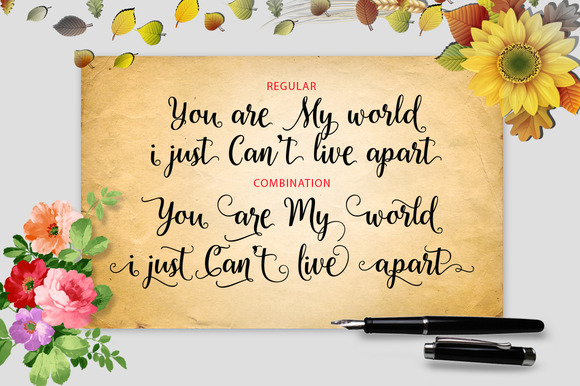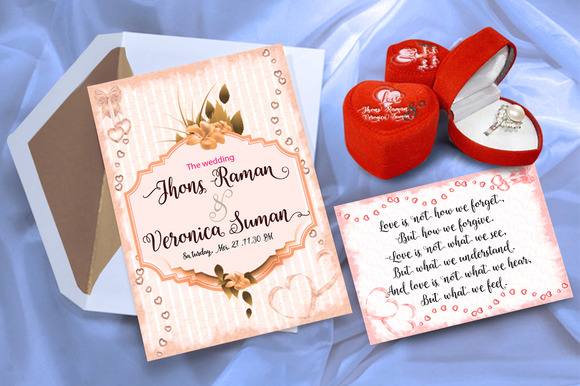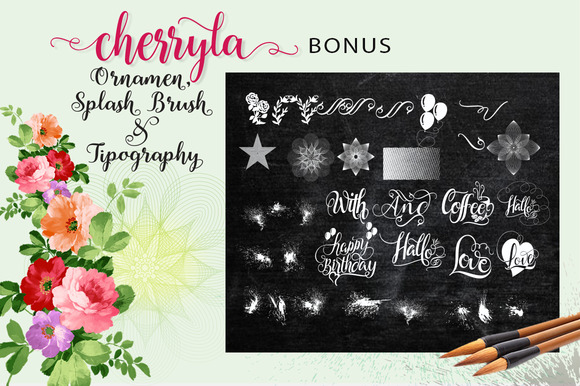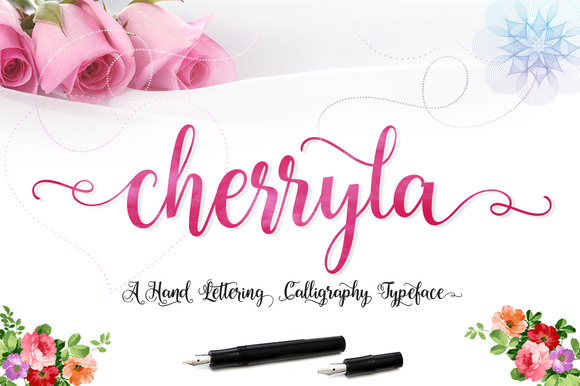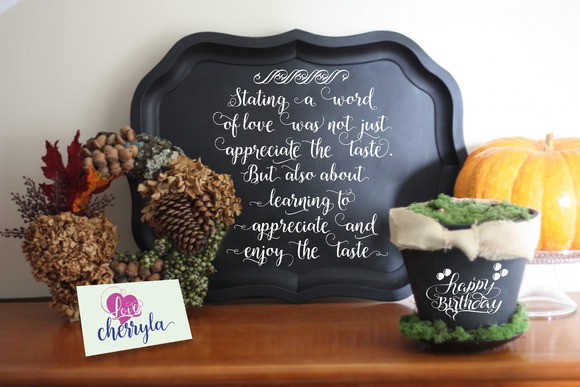
Cherryla Font
Cherryla is a modern calligraphic handwriting. Suitable for wedding invitations, greeting cards, design of water-based paints, correspondence, and a variety of other purposes. equipped. Cherryla letters equipped with a complete set of standard characters, with 375 in total with alternates Glyph respectively and has also been given Unicode.
• Contextual Alternates
• standard ligatures
• swashes
• Stylistic Alternates
• Stylistic sets
• titling Alternates
Basic Latin A-Z and a-z Numbers Symbols